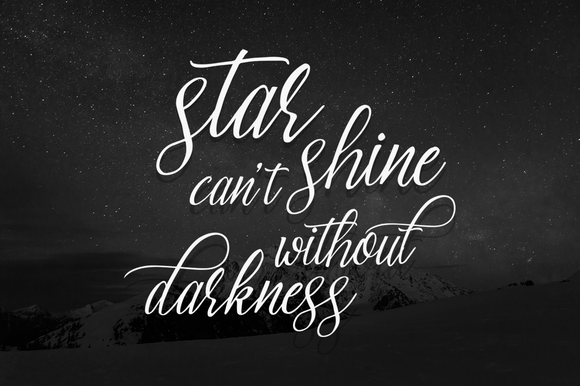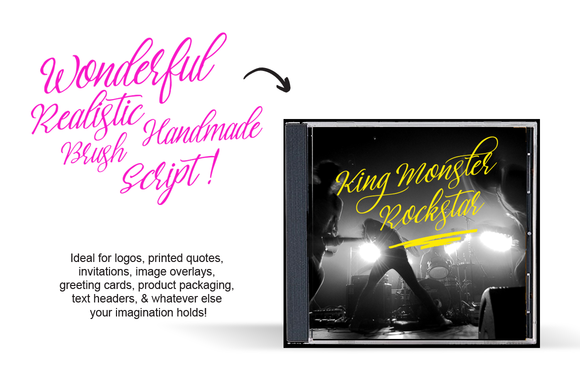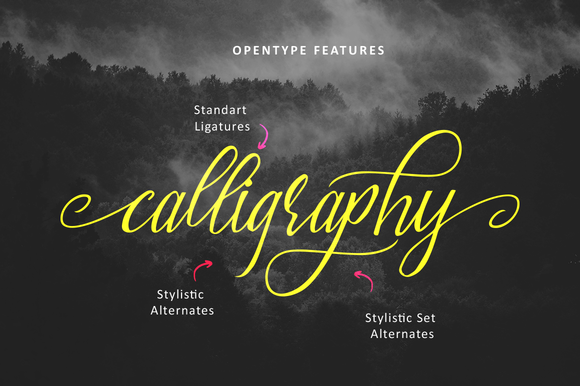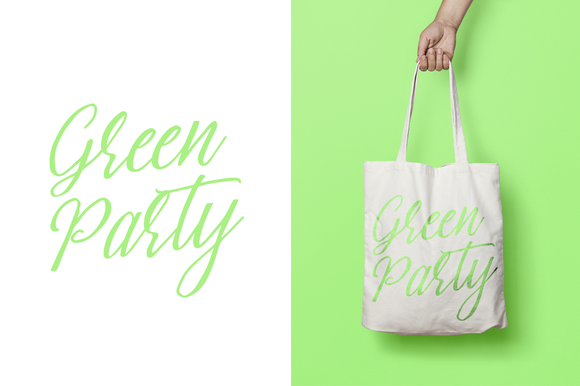
Introducing Brightside Font: A Beautiful Handmade Script with a Natural Look
In the world of typography, a beautiful font can make all the difference in the aesthetic and feel of a design project. For designers and crafters looking for a unique and authentic touch, the Brightside Font is an excellent choice. This gorgeous handmade script boasts a natural look that is sure to elevate any creative endeavor.
What is Brightside Typeface?
Brightside Typeface is a beautiful handmade script with a natural look. Crafted with love and care, this font is designed to bring a touch of warmth and personality to any design project. Its unique, hand-crafted aesthetic makes it perfect for a wide range of applications, from branding and packaging to invitations and digital media.
Characteristics of Brightside Font
The Brightside Font is characterized by its:
- Handmade script style: Each letter is carefully crafted to create a natural, organic look that is reminiscent of handwritten script.
- Natural look: The font’s imperfections and quirks give it a charming, authentic feel that is perfect for designs that require a personal touch.
- Unique personality: Brightside Font has a distinct character that sets it apart from more traditional fonts, making it ideal for designers looking to add some flair to their work.
Uses for Brightside Font
The versatility of Brightside Font makes it suitable for a wide range of design projects, including:
- Branding and packaging: Add a touch of elegance and sophistication to your brand’s identity with this beautiful handmade script.
- Invitations and stationery: Create beautiful, one-of-a-kind invitations and stationery that reflect your personal style.
- Digital media: Use Brightside Font to add a personal touch to your website, social media, or digital marketing materials.
- Crafting and DIY projects: Perfect for crafters and DIY enthusiasts looking to add a unique and handmade touch to their projects.
Why Choose Brightside Font?
With so many fonts available, why choose Brightside Font? Here are just a few reasons:
- Unique and authentic: Brightside Font offers a distinctive, handmade aesthetic that sets it apart from more traditional fonts.
- Easy to use: This font is designed to be user-friendly, making it easy to incorporate into your design projects.
- High-quality: Crafted with attention to detail, Brightside Font is a high-quality font that will elevate your designs.
Tips for Using Brightside Font
To get the most out of Brightside Font, here are a few tips:
- Use it sparingly: Brightside Font is best used as an accent font to add a touch of elegance and sophistication to your design.
- Experiment with colors: Try pairing Brightside Font with different colors to create a unique and eye-catching design.
- Mix and match: Combine Brightside Font with other fonts to create a visually interesting design.
In conclusion, the Brightside Font is a beautiful handmade script with a natural look that is sure to elevate any design project. Its unique personality, versatility, and high-quality craftsmanship make it an excellent choice for designers and crafters looking for a distinctive and authentic touch. Whether you’re working on a branding project, creating invitations, or crafting DIY projects, Brightside Font is a great choice.
So why not give Brightside Font a try? With its natural look and handmade aesthetic, it’s sure to add a touch of warmth and personality to your designs.